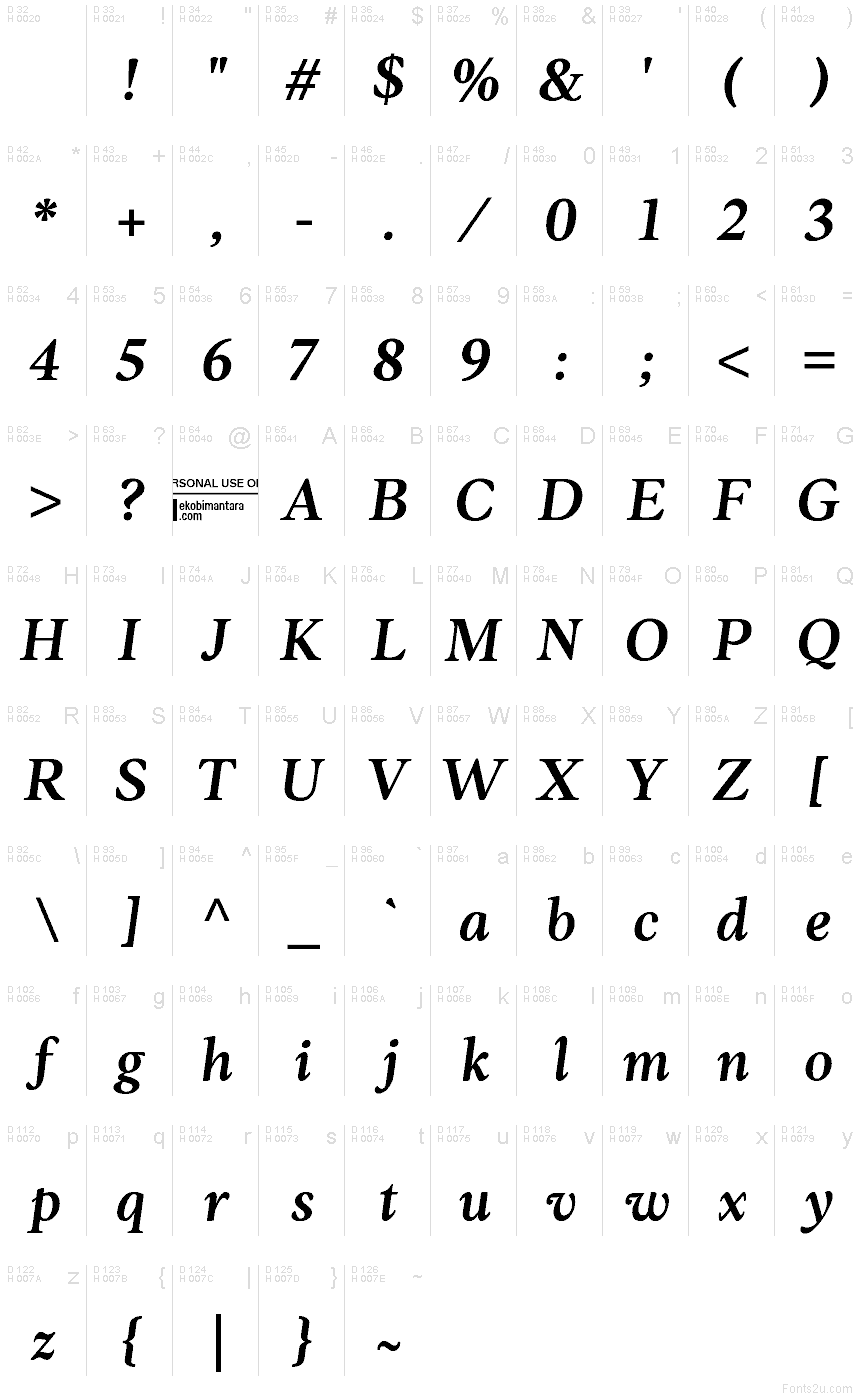
Anko Trial SemiBold Italic
Anko SemiBold Italic font by Eko Bimantara is a free semibold italic serif font from the Anko family that solves a familiar challenge: getting expressive emphasis without sacrificing clarity. Its slanted rhythm, inky curves, and sturdy, lightly flared serifs deliver warmth and authority in the same breath. Moderate contrast and generous counters keep it crisp at subhead sizes, while the lively italic angle adds motion that headlines love.
Using Anko SemiBold Italic, you’ll get standout results on magazine covers, boutique logos, restaurant menus, packaging labels, posters, and editorial pull quotes. This free font shines on web hero banners too, where its confident tilt draws the eye fast. Pair it with Anko Regular for text, and tighten tracking a touch at large display sizes to accentuate its smooth, sculpted flow.